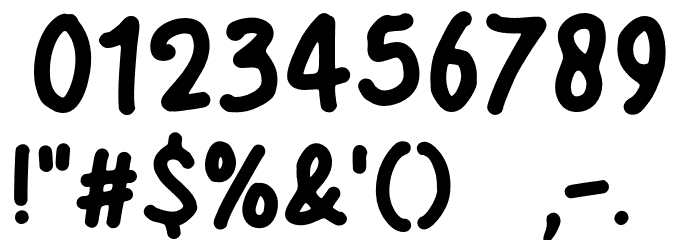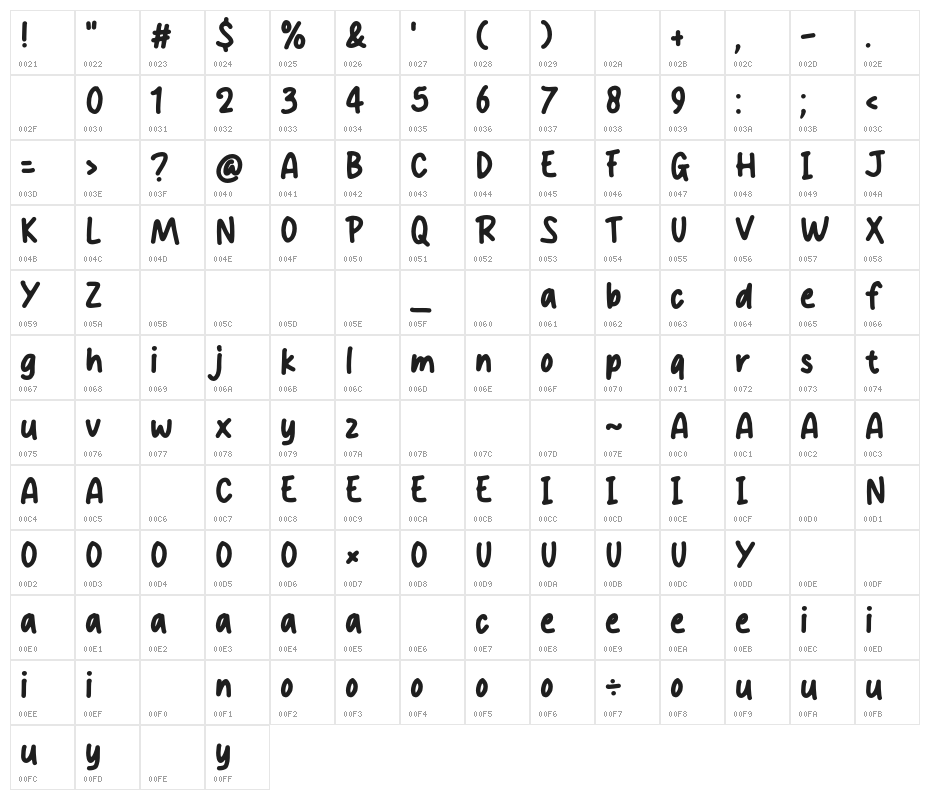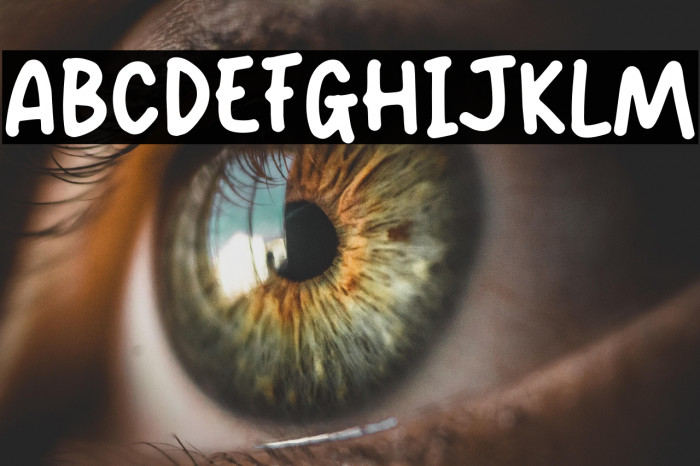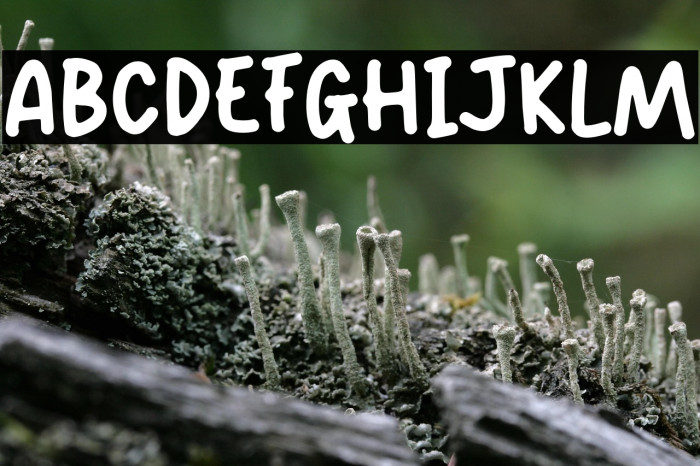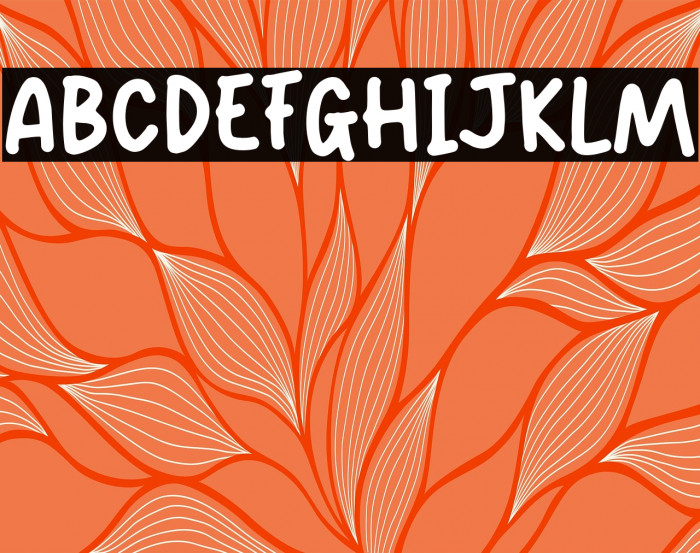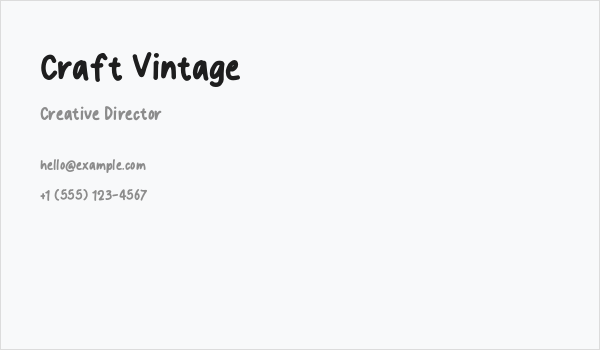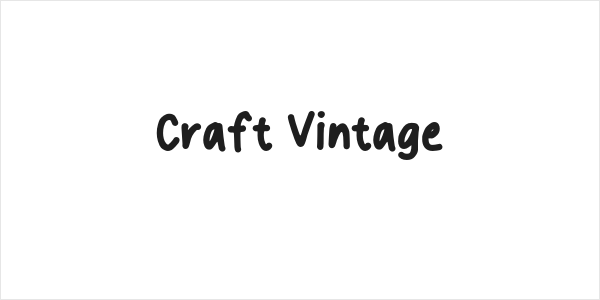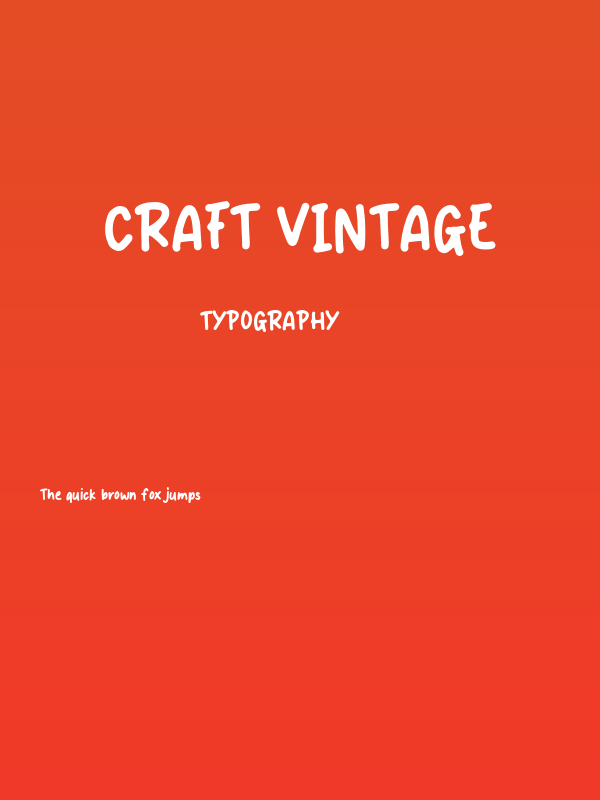
Craft Vintage Font
Craft Vintage Description
This font exudes a playful and handcrafted vibe, characterized by its bold and rounded letterforms. The strokes are consistent in thickness, giving it a uniform appearance that enhances readability. The letters have a slightly irregular baseline, adding to the casual and friendly feel. The uppercase and lowercase letters are well-proportioned, with a slight slant that suggests movement and energy. The numerals and special characters maintain the same stylistic approach, ensuring cohesion across all elements. This font is versatile, suitable for projects that require a personal touch or a vintage aesthetic.
| Overall Style | Vintage |
| Proposed Projects | Ideal for branding, packaging, posters, and social media graphics that require a personal or vintage touch. |